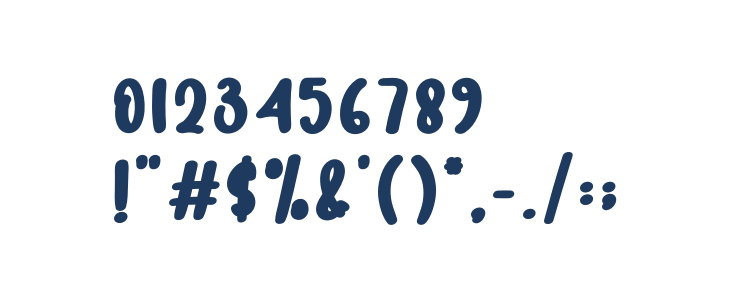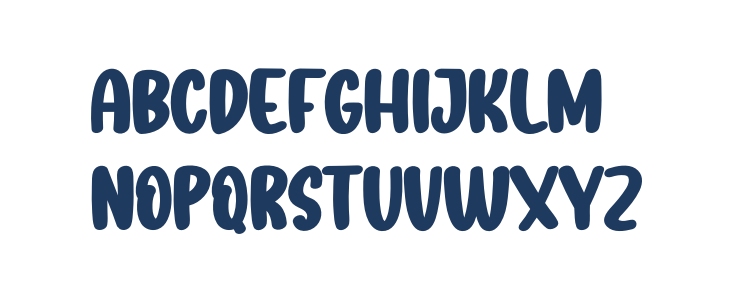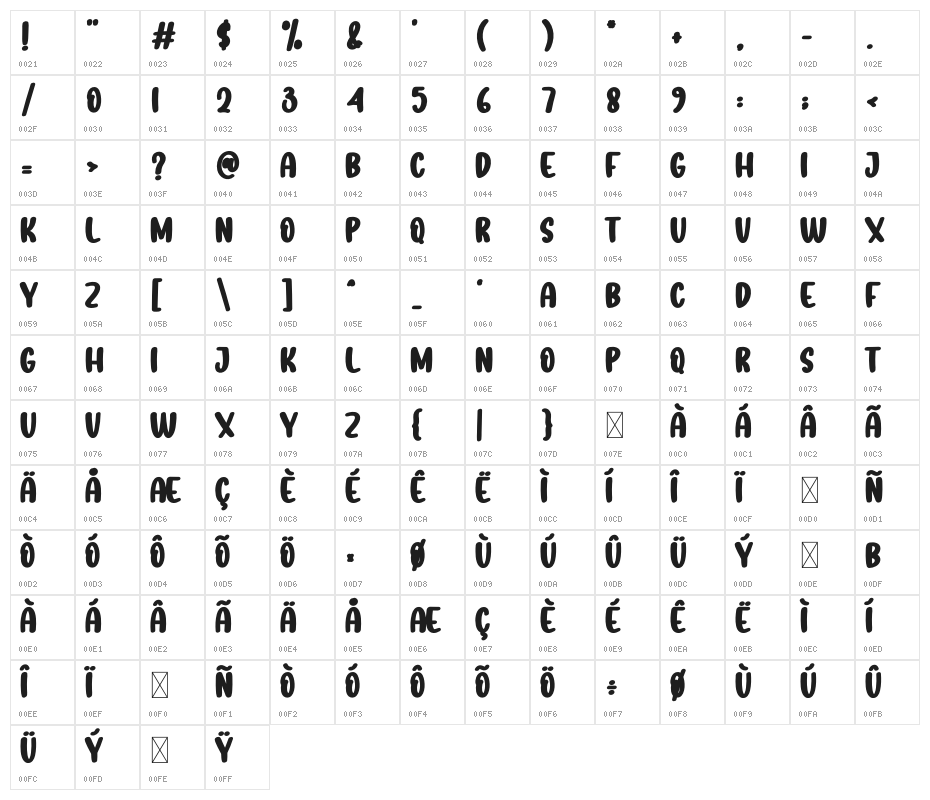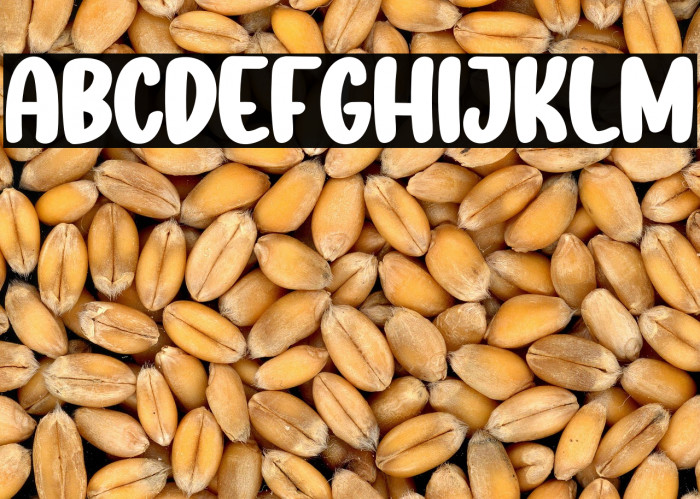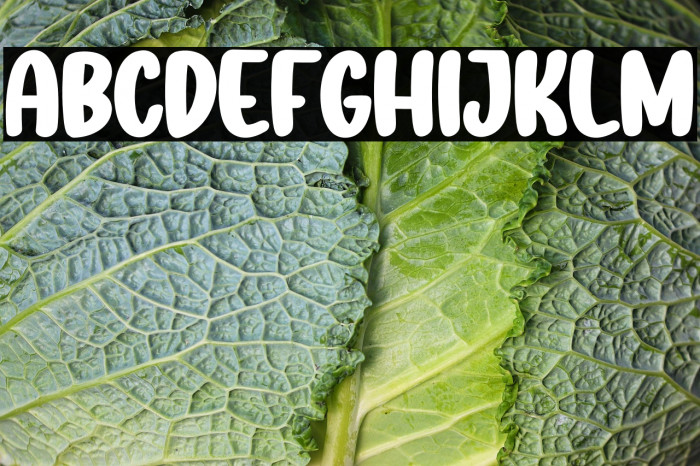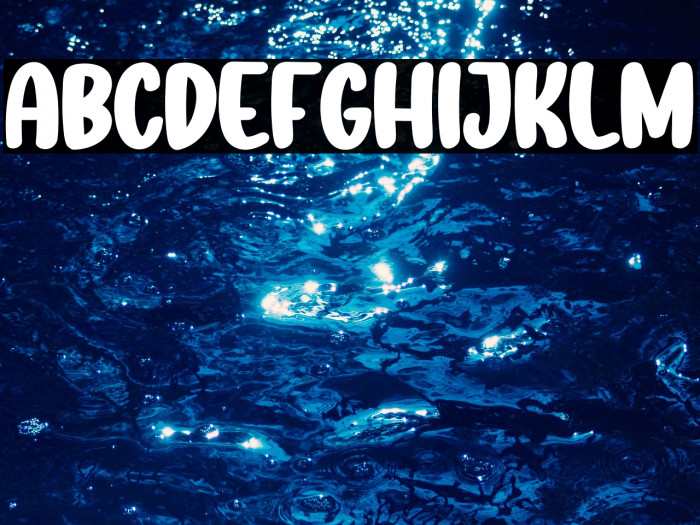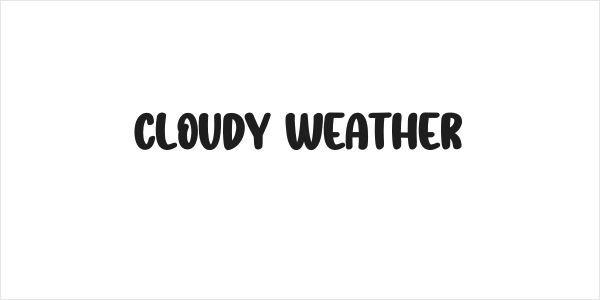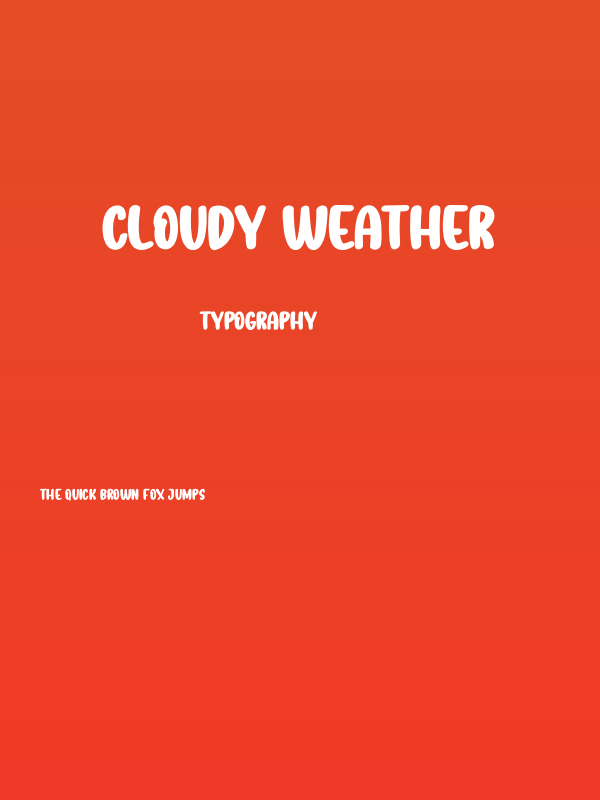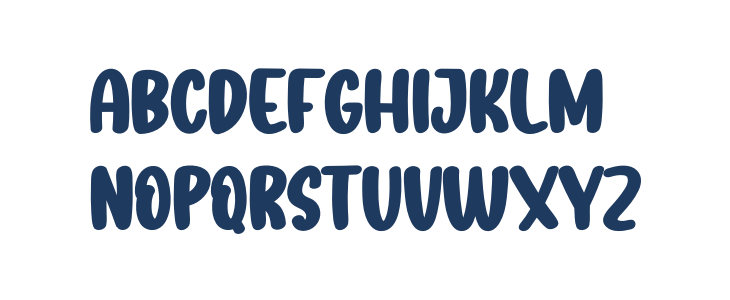
Cloudy Weather Font
| Overall Style | Playful, Decorative, Casual |
| Use Case | Headlines, Logos, Posters, Social Media |
| Proposed Projects | Children's books, posters, greeting cards, branding for playful or casual products, social media graphics. |